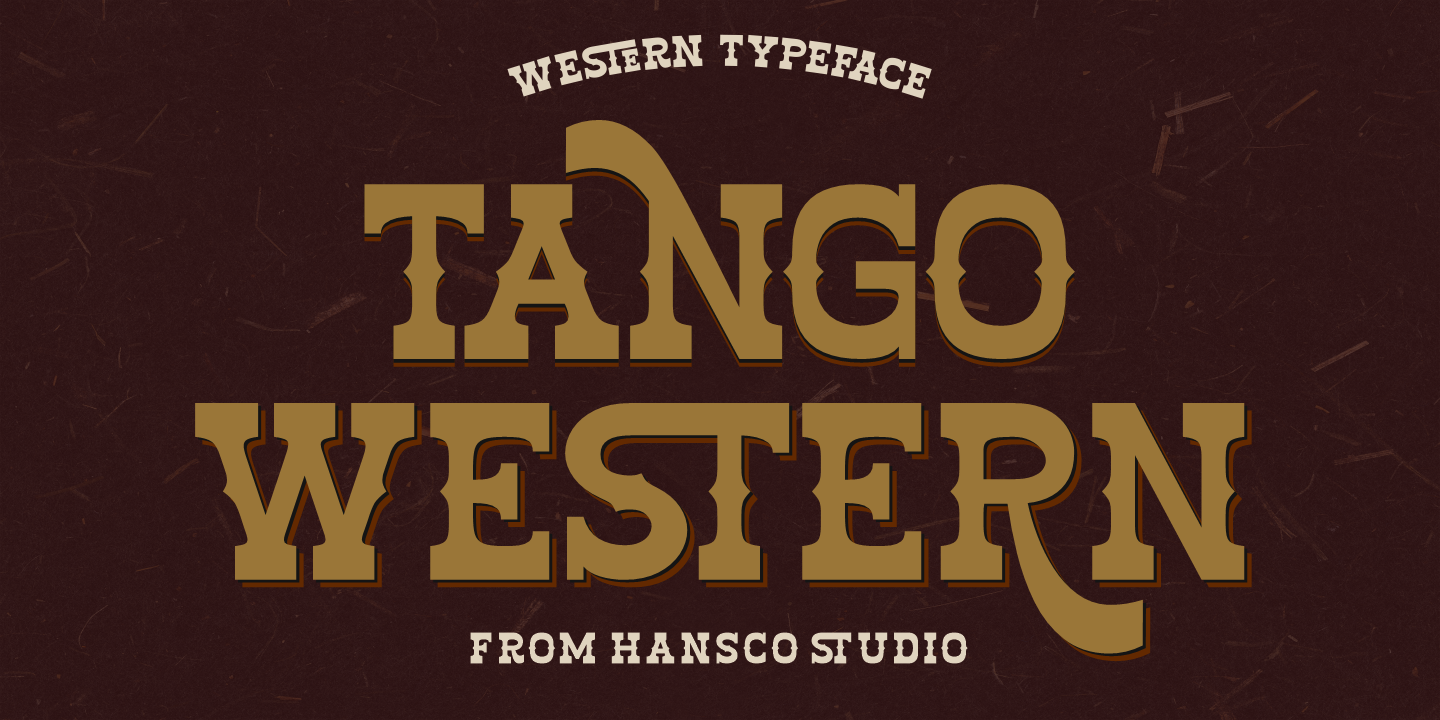
Tango Western Font is perfect for cowboy bar signage, ranch branding materials, western movie titles, country music album covers, rodeo event posters, frontier-themed restaurants, southwestern tourism campaigns, and vintage western merchandise. This rugged typeface excels in applications where frontier spirit and western authenticity are essential.
What makes Tango Western Font so exciting is its powerful ability to capture the untamed spirit of the American frontier through bold, saloon-inspired letterforms that embody the courage and independence of western pioneers. The font features robust character shapes with spurred details and cowboy-influenced styling that evoke images of dusty trails, cattle ranches, and legendary gunfighters. Its frontier design philosophy combines historical western authenticity with contemporary functionality, making it perfect for brands seeking to convey rugged independence, adventure spirit, and connection to iconic American western heritage and cowboy culture.
Tango Western Font belongs to the western display font family, specifically designed for frontier and cowboy-themed branding applications. This typeface family emphasizes bold visual impact through ranch-inspired styling and cowboy character elements, ensuring authentic western presentation across various frontier and outdoor adventure-focused design projects.
Ride into authentic western style with Tango Western Font Free Download, a typeface that embodies the legendary spirit of American frontier life and cowboy heritage. This bold font delivers exceptional character for western applications, featuring comprehensive letterforms with frontier details and cowboy punctuation marks that capture the essence of saloon culture and ranch life. Its powerfully constructed design maintains excellent visibility while preserving the authentic western aesthetic across various sizes, from small belt buckle engravings to massive rodeo arena banners. The font's distinctive frontier personality makes it indispensable for designers creating western brands, country entertainment materials, and frontier content where conveying rugged authenticity, adventure spirit, and cowboy heritage is crucial for connecting with western culture enthusiasts and frontier lifestyle communities.